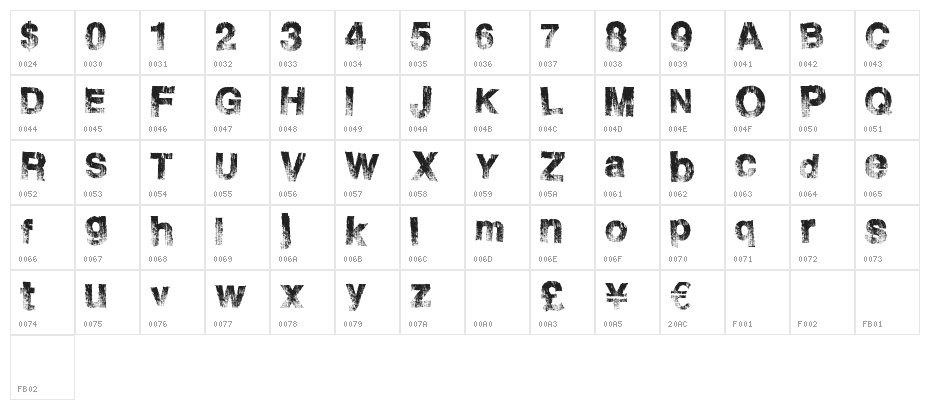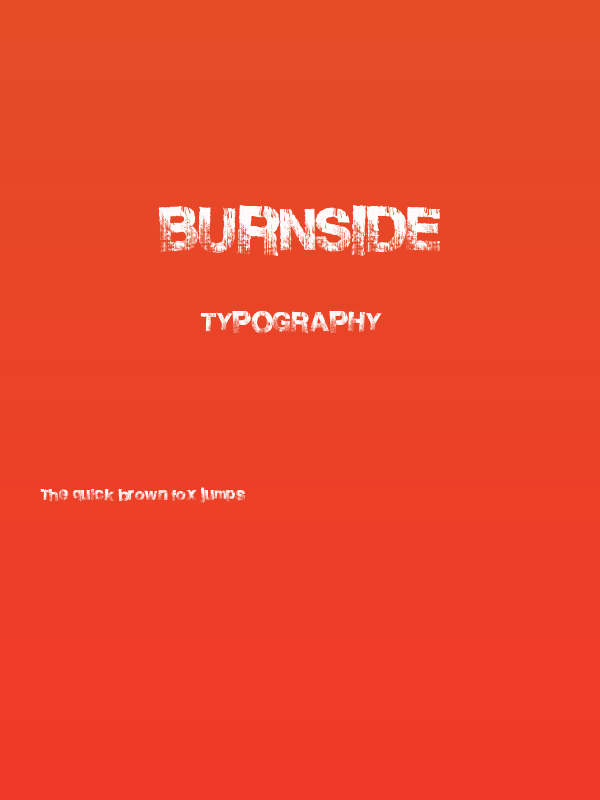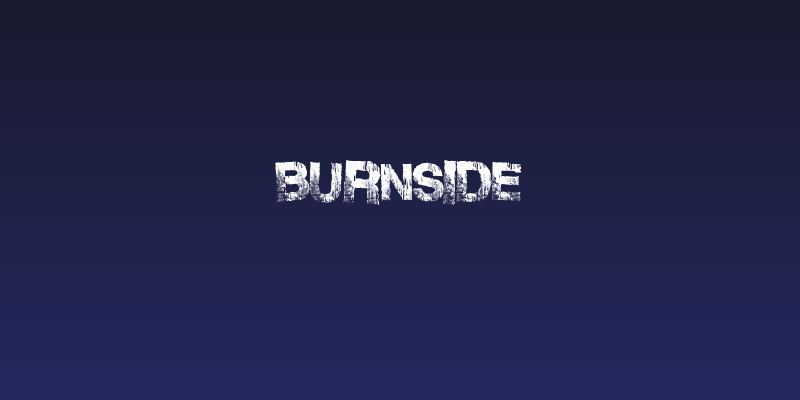
BurnSide Font
BurnSide Description
This font features a distressed, grunge style with a textured appearance that gives it a worn and rugged look. The characters are bold and impactful, with a rough, uneven surface that suggests a sense of age and weathering. The uppercase and lowercase letters maintain a consistent style, with the texture adding a unique visual interest. The numbers and special characters follow the same design, ensuring uniformity across all glyphs. This font is ideal for projects that require a gritty, urban aesthetic or a vintage, industrial feel.
BURNSIDE UPPERCASE
BURNSIDE LOWERCASE
BURNSIDE OTHER CHARS
| Overall Style | Grunge, Vintage |
| Proposed Projects | Ideal for album covers, posters, branding for edgy or alternative products, and any design needing a rugged, vintage look. |